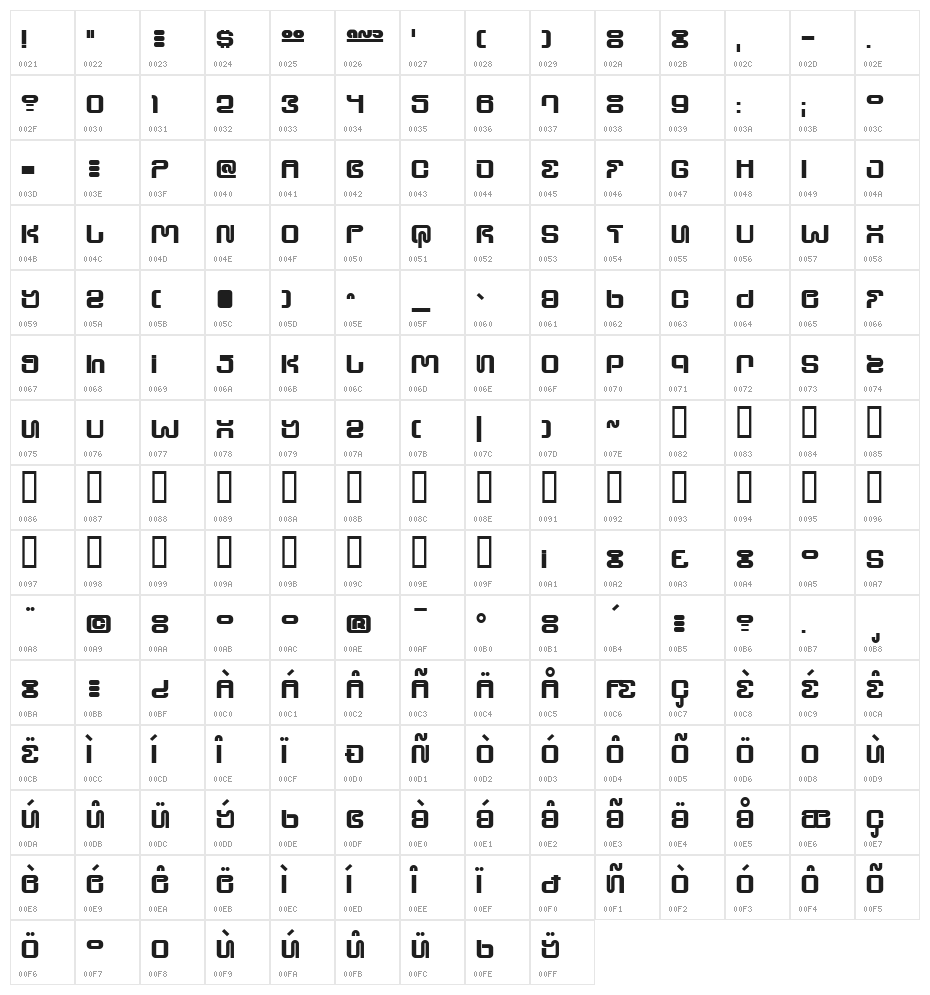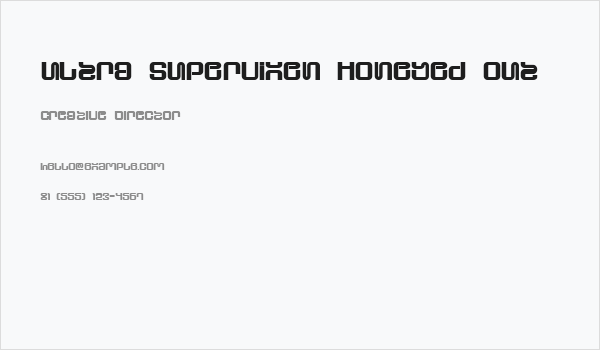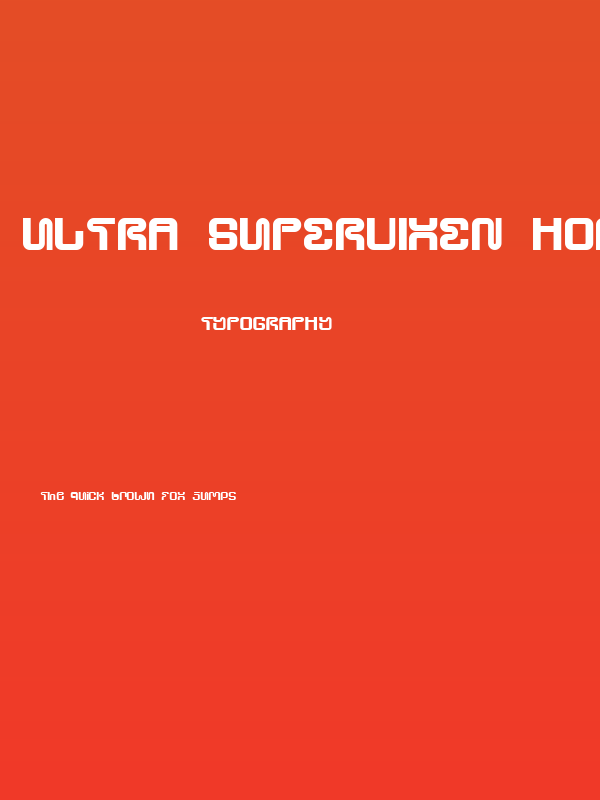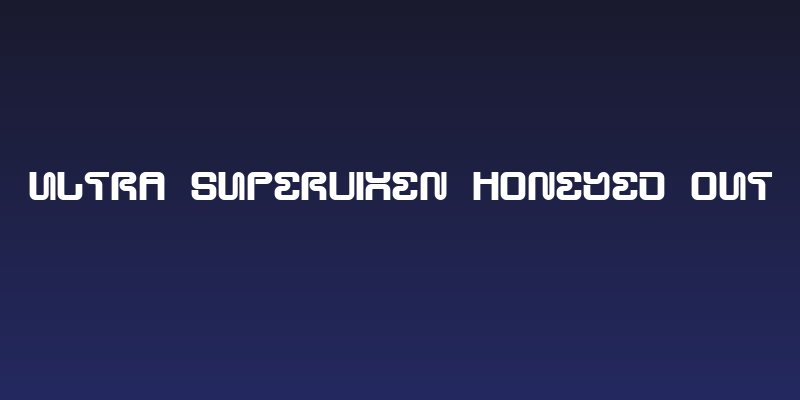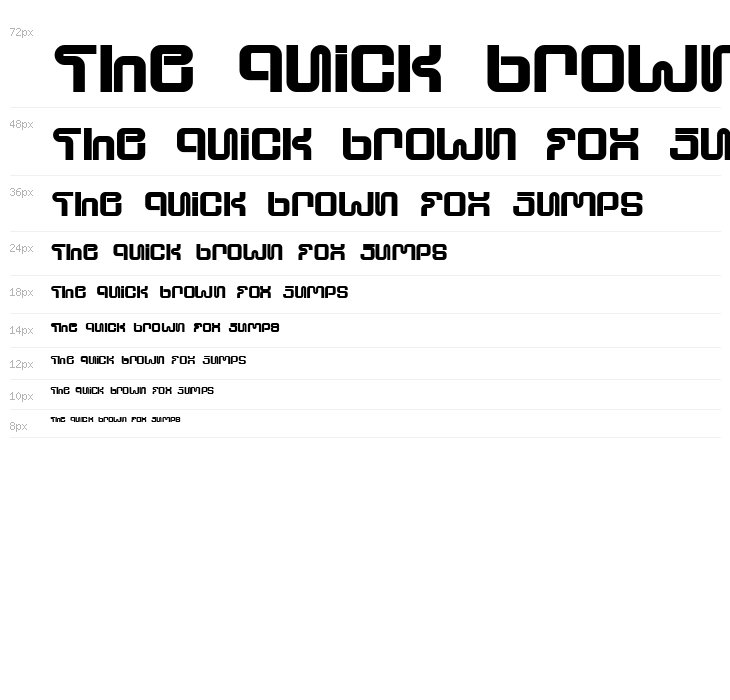
Ultra Supervixen Honeyed Out Font
Ultra Supervixen Honeyed Out Description
This font features a bold, futuristic design with a geometric structure. The characters are constructed with thick, uniform strokes that create a strong visual impact. The rounded edges and closed counters give it a modern and sleek appearance. The uppercase and lowercase letters maintain a consistent style, while the numerals and special characters complement the overall aesthetic. The font's unique style makes it stand out, suitable for projects that require a contemporary and bold look.
| Proposed Projects | Ideal for technology branding, sci-fi posters, video game titles, and modern advertising campaigns. |